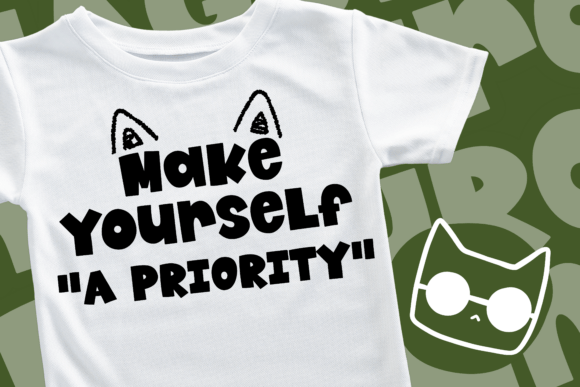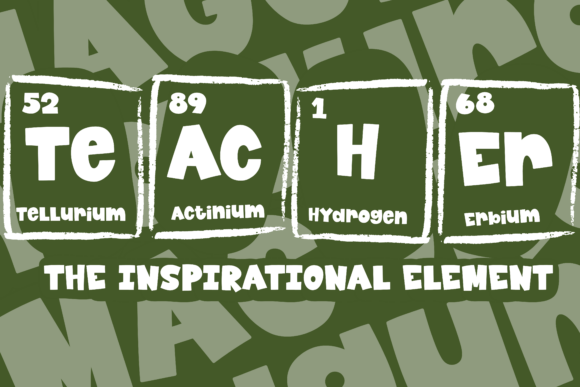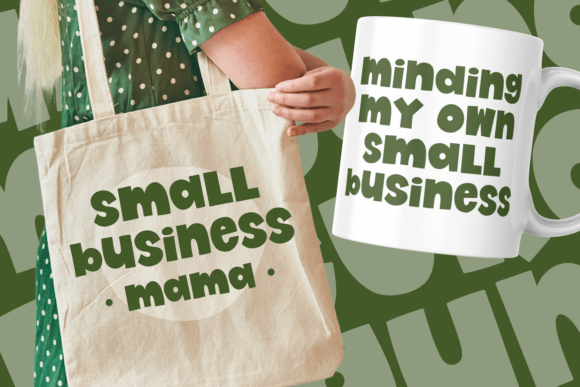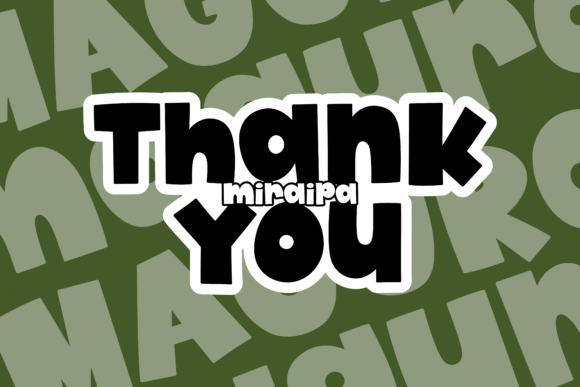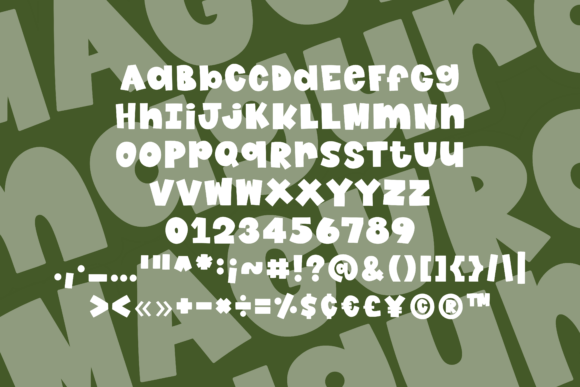
Introduction to Maguro Font
Have you ever stared at a blank canvas, feeling the pressure to create something truly unique? For designers, this moment is a familiar one – the thrill of bringing a concept to life. And what’s more thrilling than discovering the perfect font to match your vision? Enter the Maguro Font, a playful and endearing handwritten sans-serif style that’s about to become your new BFF.
With its quirky charm and high-quality design, the Maguro Font is the perfect addition to any creative project. Whether you’re designing t-shirts, coffee mugs, or digital planners, this font is sure to add a cute and funny touch that’ll make your designs stand out. And the best part? It’s available for free download, complete with a transparent background, making it easy to incorporate into your designs.
For designers, the Maguro Font is a valuable resource that’s sure to elevate your projects. Its versatility and high-quality design make it an ideal choice for a wide range of applications, from social posting to printing projects. So why wait? Dive into the world of the Maguro Font and discover the endless possibilities it has to offer.
Key Features of Maguro Font
- The font comes in three different weights: light, regular, and bold, providing versatility for different design applications.
- One of the unique characteristics of Maguro Font is its clean and modern design, making it an excellent choice for contemporary design projects.
Honest Review: Maguro Font
I recently stumbled upon the Maguro Font, a free download that I must say has some amazing features. As a designer, I’m always on the lookout for high-quality design resources to enhance my creative projects. The Maguro Font delivers on that promise.
- The Maguro Font has a unique and modern aesthetic that’s perfect for creating visually appealing designs.
While the Maguro Font is an excellent addition to my design toolkit, there are a few limitations to consider:
Overall, I’m impressed with the Maguro Font and would highly recommend it to designers looking for a high-quality, versatile font for their creative projects.
Maguro Font is commonly used in graphic design, digital art, and typography projects. Its unique design and high quality make it an excellent choice for creating eye-catching headlines, logos, and titles.